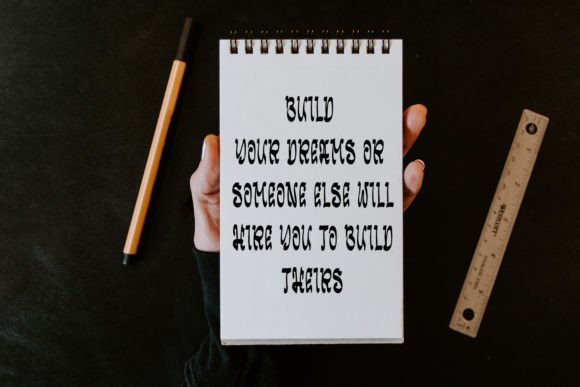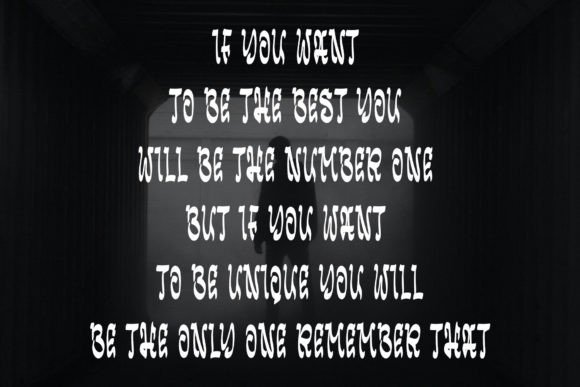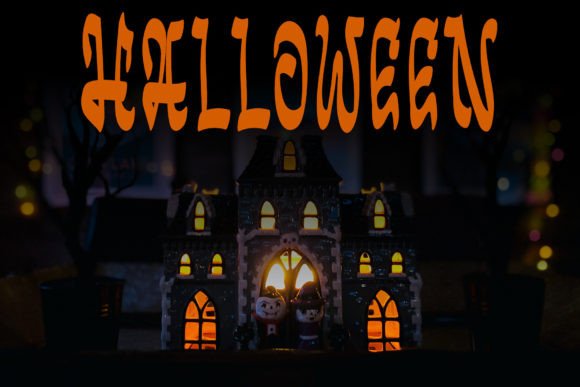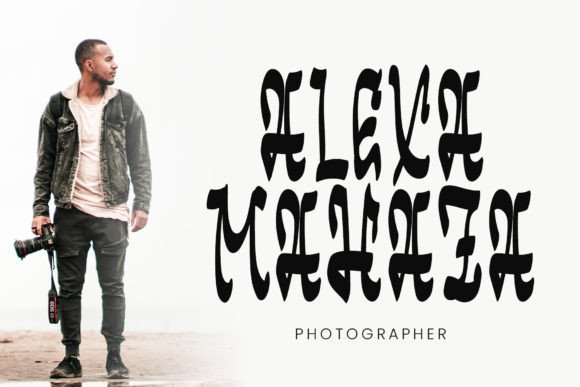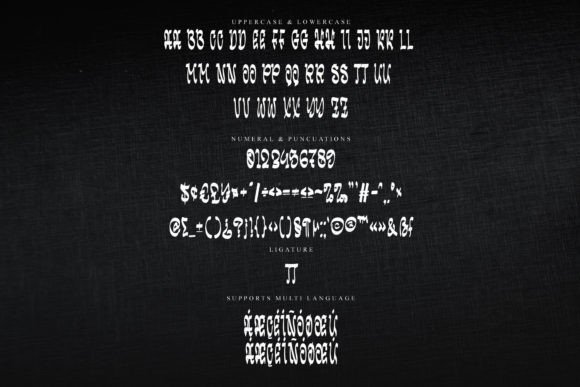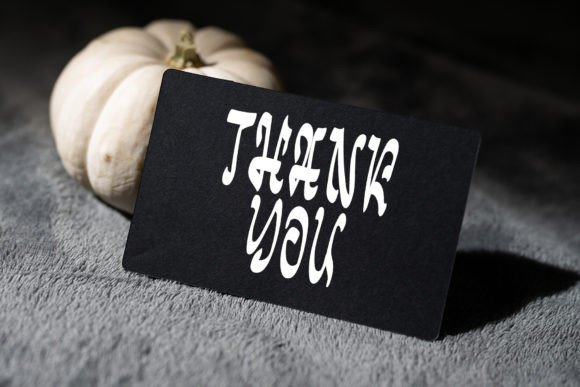
Introduction to Backmark Font
Backmark is a fun and quirky display font perfect for use on cheerful topics.
Very suitable for childrenโs themed designs, especially when combined with bright colors This font is PUA encoded which means you can access all of the amazing glyphs and ligatures with ease.
Key Features of Backmark Font
Why Choose Backmark Font?